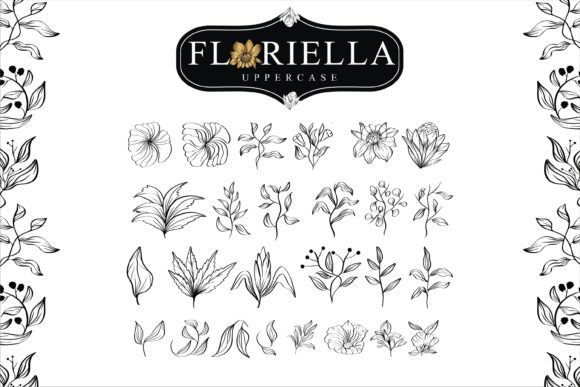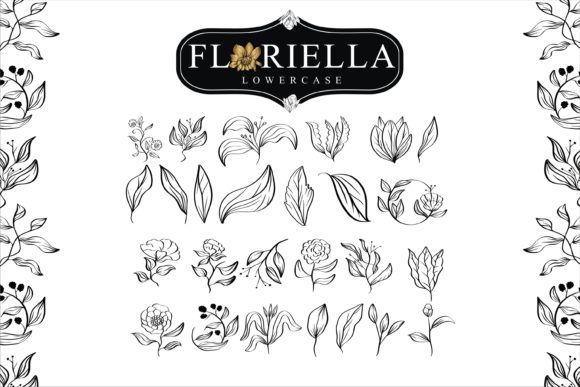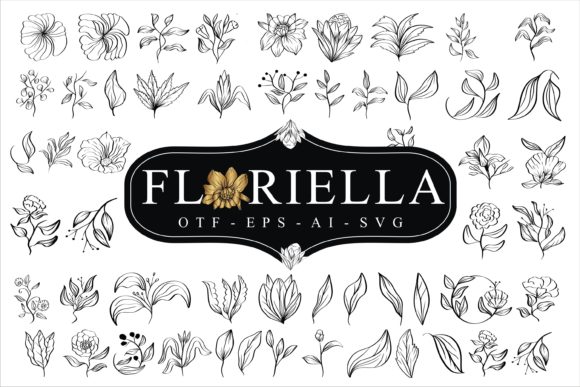
Introducing Floriella Font: Elevate Your Designs with a Cool and Creative Dingbats Font
Are you a designer, crafter, or DIY enthusiast looking for a unique and versatile font to take your projects to the next level? Look no further than Floriella Font, a cool, creative, and useful dingbats font that’s sure to become an incredible asset to your font library. With its wide range of applications and ease of use, Floriella Font is the perfect addition to any designer’s toolkit.
What is Floriella Font?
Floriella Font is a dingbats font that features a collection of decorative symbols, icons, and ornaments that can be used to add a touch of elegance and whimsy to any design project. From floral patterns and borders to icons and shapes, Floriella Font offers a vast array of creative possibilities. Whether you’re working on a graphic design project, crafting a handmade card, or creating a digital product, Floriella Font is the perfect choice.
Key Features of Floriella Font
- Cool and Creative Designs: Floriella Font features a unique and stylish collection of dingbats that are sure to add a touch of personality to any design project.
- Versatile and Adaptable: With its wide range of symbols, icons, and ornaments, Floriella Font can be used for a variety of design projects, from crafting and scrapbooking to graphic design and digital products.
- High-Quality Design: Each dingbat in Floriella Font has been carefully designed to ensure that it is crisp, clear, and scalable to any size.
Uses for Floriella Font
Floriella Font is an incredibly versatile font that can be used for a wide range of design projects, including:
- Crafting and Scrapbooking: Add a personal touch to your handmade cards, scrapbook pages, and other craft projects with Floriella Font’s decorative symbols and icons.
- Graphic Design: Use Floriella Font to add visual interest to your graphic design projects, such as brochures, flyers, and posters.
- Digital Products: Incorporate Floriella Font into your digital products, such as printable art, planners, and journals.
- Social Media Graphics: Add a touch of personality to your social media graphics, such as Instagram posts and Facebook graphics.
Why Choose Floriella Font?
With so many fonts available, why choose Floriella Font? Here are just a few reasons why Floriella Font stands out from the crowd:
- Unique and Creative Designs: Floriella Font offers a fresh and unique collection of dingbats that will set your designs apart from the rest.
- Time-Saving: With Floriella Font, you’ll have access to a wide range of decorative symbols and icons, saving you time and effort in your design projects.
In conclusion, Floriella Font is a cool, creative, and useful dingbats font that’s perfect for designers, crafters, and DIY enthusiasts. With its wide range of applications, ease of use, and high-quality design, Floriella Font is sure to become an incredible asset to your font library. Whether you’re working on a graphic design project, crafting a handmade card, or creating a digital product, Floriella Font is the perfect choice. So why wait? Download Floriella Font today and take your designs to the next level!